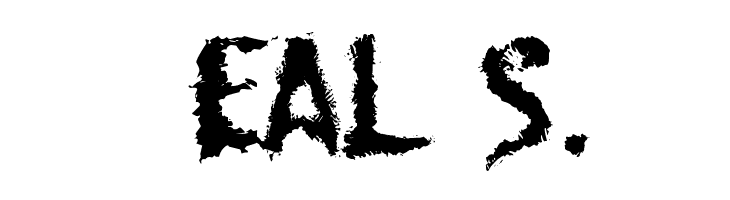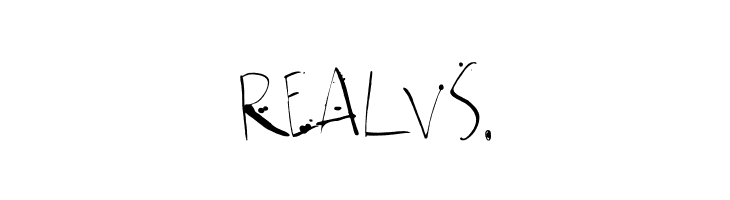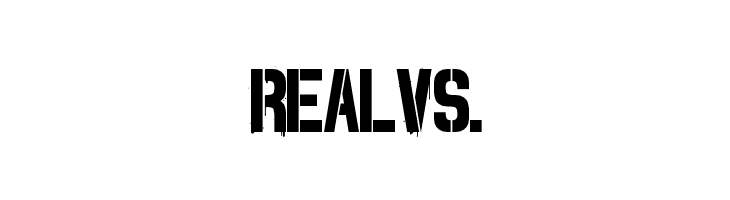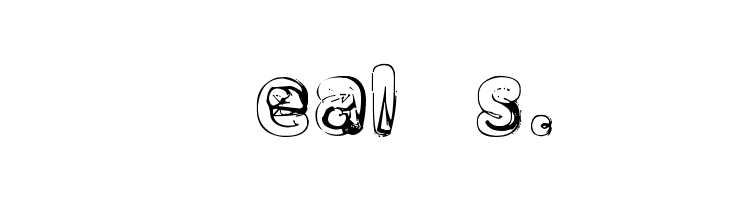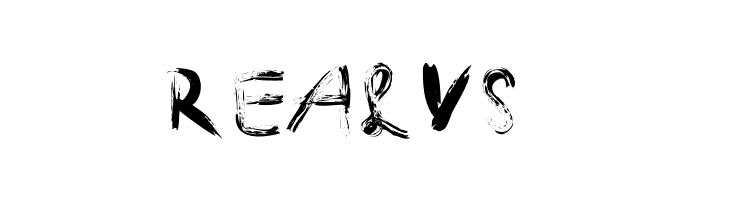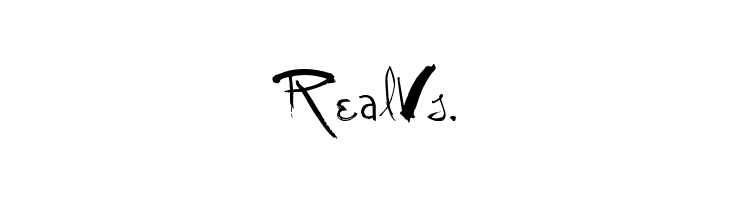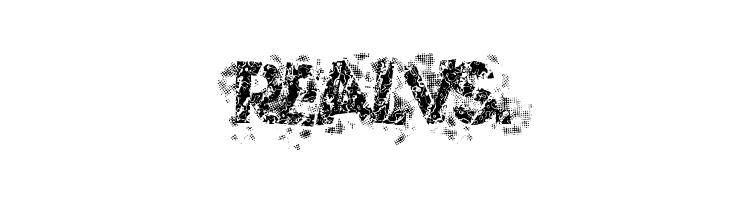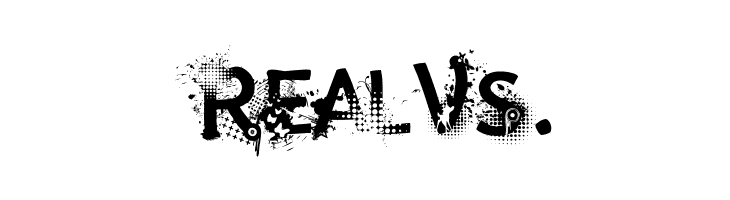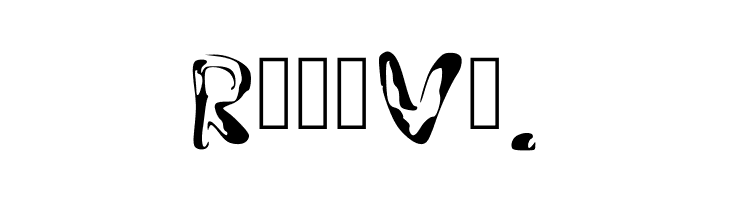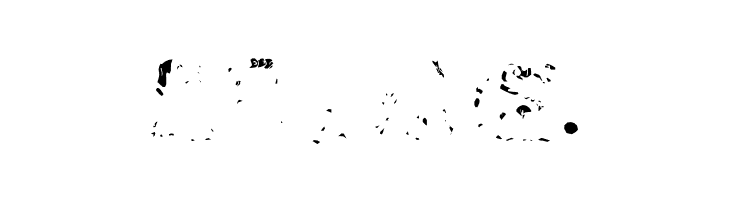
A bold, artistic font with an ink-like, fluid appearance.
A decorative, hand-drawn font with a distressed, textured effect.
A bold, grunge-style font with a distressed, edgy appearance.
A bold, distressed font with rough, chaotic edges and a grunge aesthetic.
A distressed, grungy font with fragmented, eroded letterforms.
A bold, splash-like font with a textured, dynamic appearance.
A vibrant, graffiti-inspired font with bold, decorative characters.
An abstract, ink-splatter style font with a highly decorative and artistic appearance.
A bold, textured font with a playful, handcrafted appearance.
A bold, grunge-inspired font with a distressed and edgy appearance.
A bold, distressed font with a rough, textured appearance.
A bold, graffiti-inspired font with a spray paint effect.
A bold, grunge-style font with ink-like textures and playful outlines.
A bold, expressive font with a hand-painted, artistic style.
A bold, distressed font with a grungy, textured style.
An expressive, brush-style font with dramatic strokes and a graffiti-like appearance.
A bold, distressed font with a grunge aesthetic and textured, weathered characters.
A bold, distressed font with a grungy, horror-themed aesthetic.
A playful, high-contrast decorative font with fluid, ink-like shapes.
A decorative and grungy font with chaotic, distressed design elements.
A distressed, grungy font with an edgy, chaotic aesthetic.
A bold, graffiti-style font with dynamic strokes and authentic street art elements.
A bold, eclectic font with a punk rock aesthetic and distressed textures.
A playful, dripping style font with a whimsical and decorative appearance.
A bold, distressed font with a playful, grunge-like texture.
A dramatic, blood-drenched style font with condensed, italicized characters.
A bold, distressed font with a grungy, textured appearance.
A bold, distressed font with a grunge aesthetic.
A bold, grungy font with jagged, distressed characters.
A bold, grungy font with a distressed, hand-drawn appearance.
A dynamic, expressive script font with a playful, handwritten style.
A bold, decorative script font with a grunge effect and flowing cursive style.